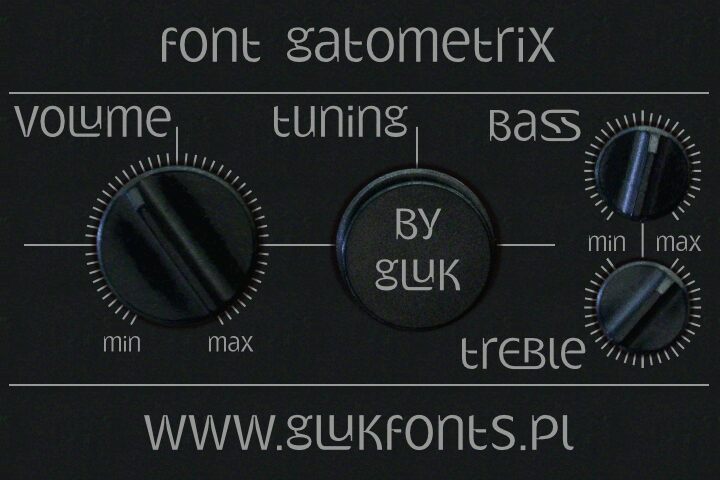
Gatometrix by Gluk is a free techno display font with tall, ultra-light letters and an unusually broad geometric stance. Rounded bowls dominate the design, with nearly monolinear strokes keeping its broad forms airy, as extended crossbars and abrupt gaps cut through the smooth outlines to create an engineered silhouette.
Designers working for technology and experimental music audiences will find it useful for brand identities, event posters, and album covers. It also suits interface titles and motion graphics. The recurring horizontal cuts can echo circuit paths, scanning lines, or data streams, making the lettering part of the technical imagery rather than a neutral caption.
Gatometrix